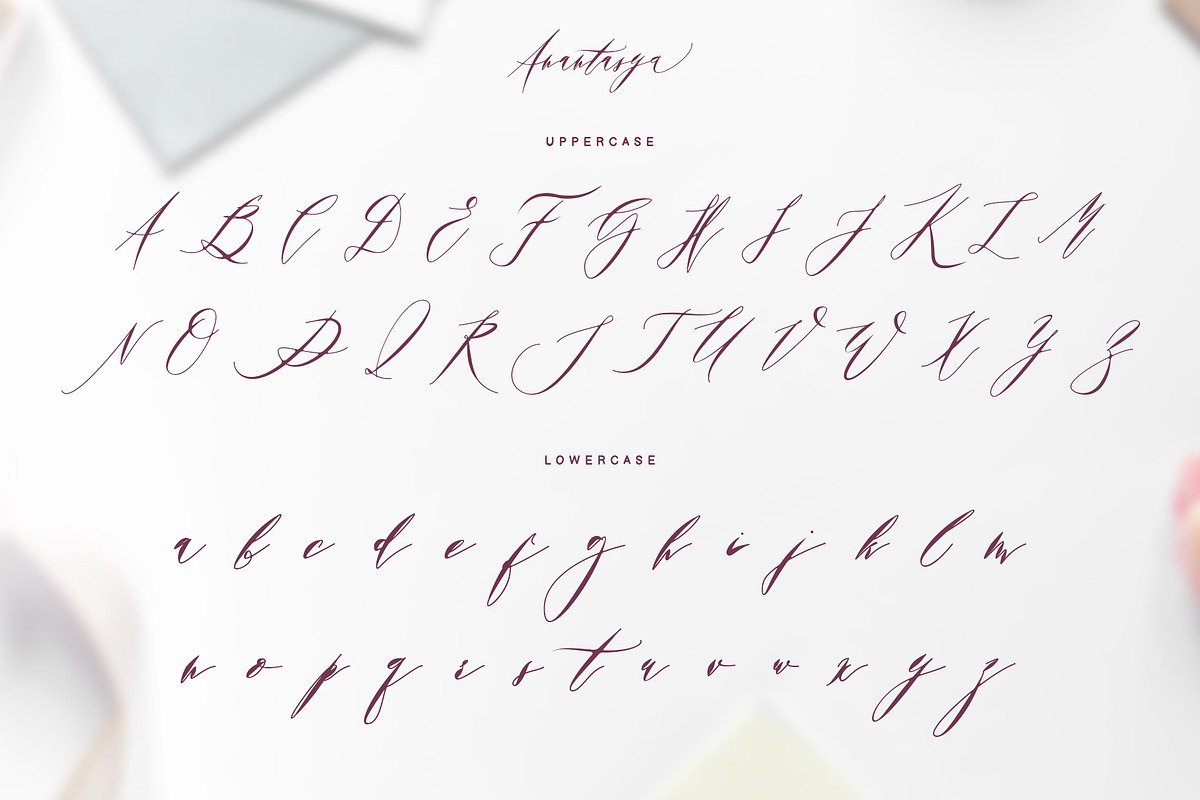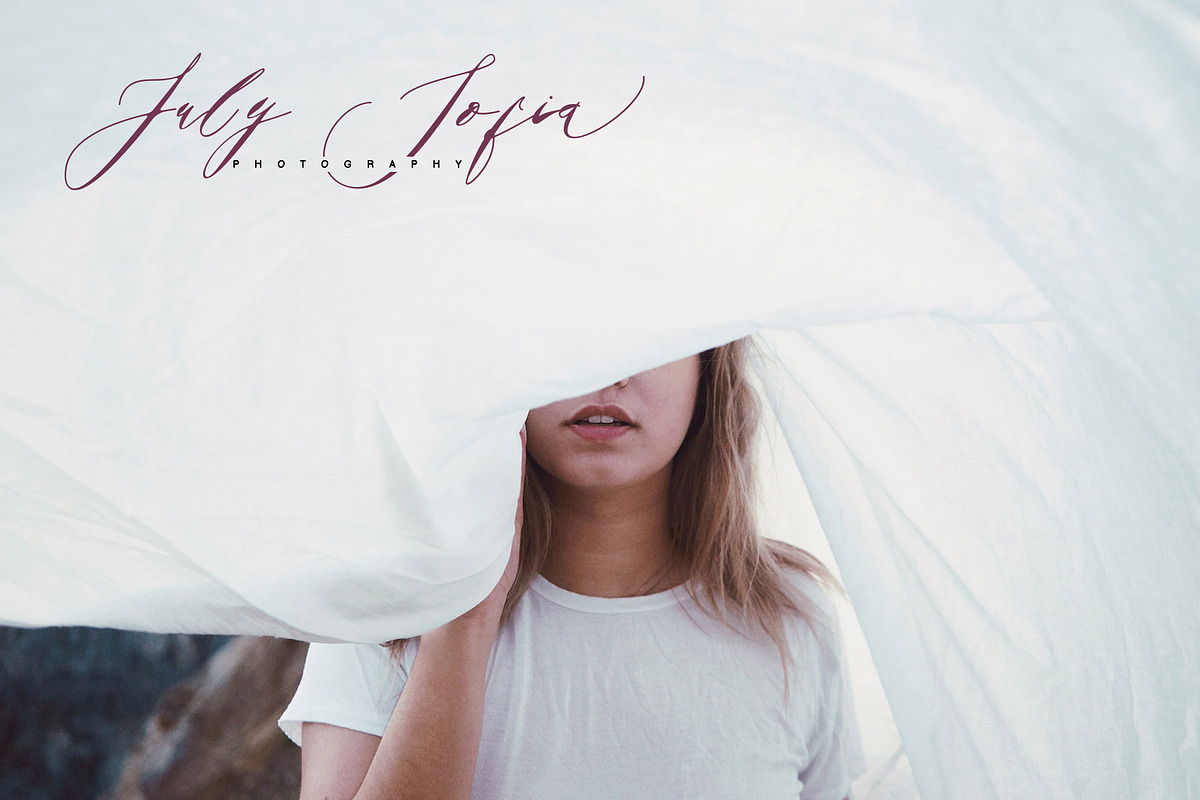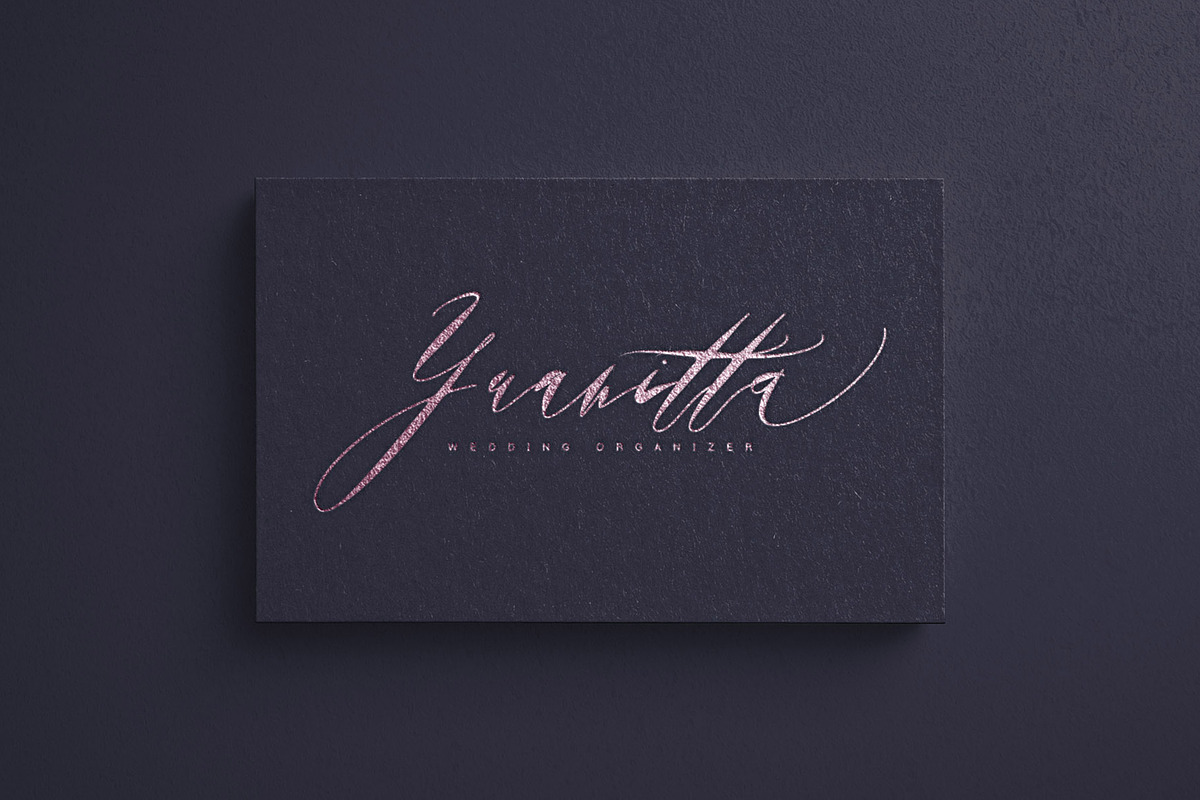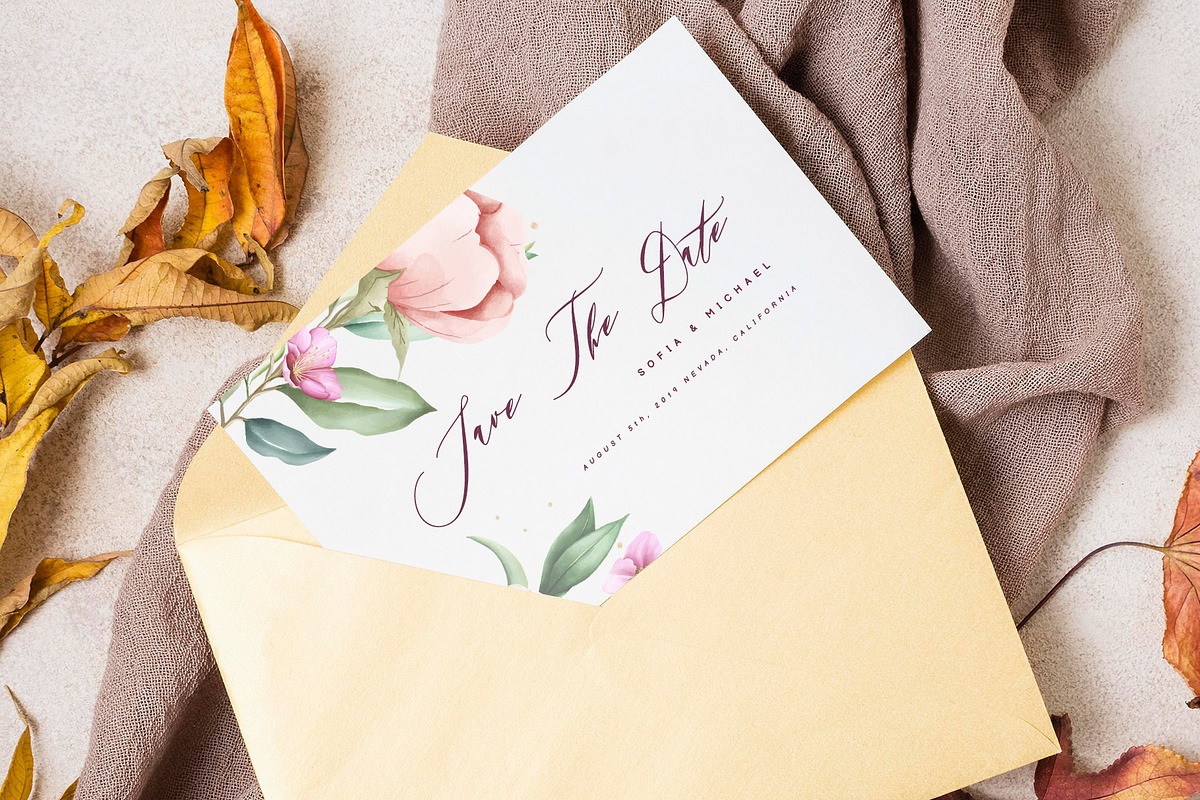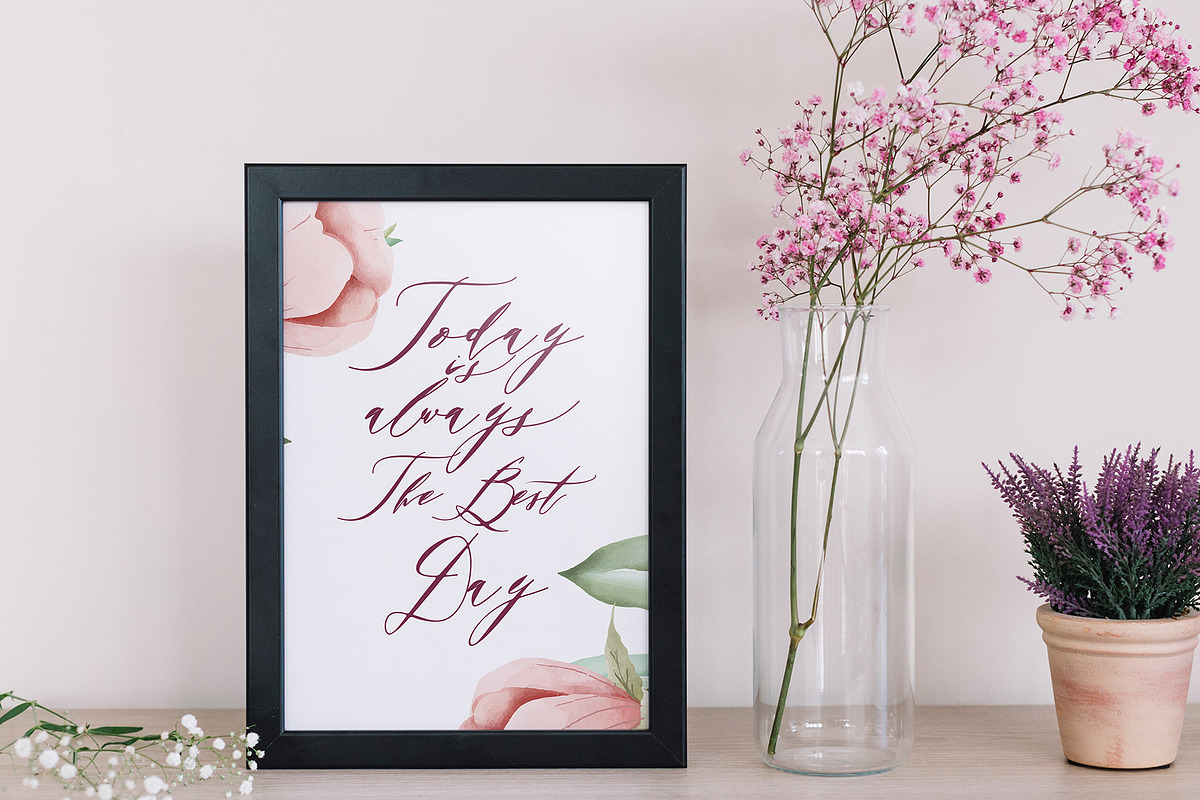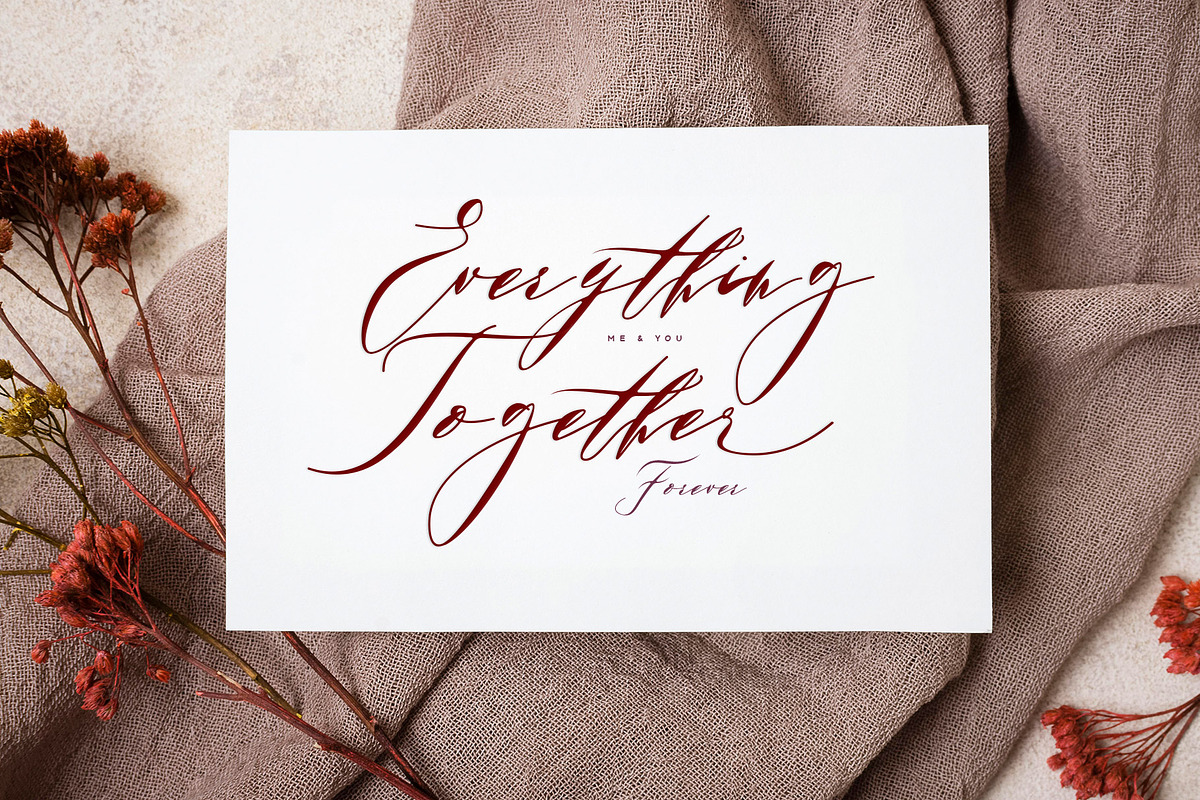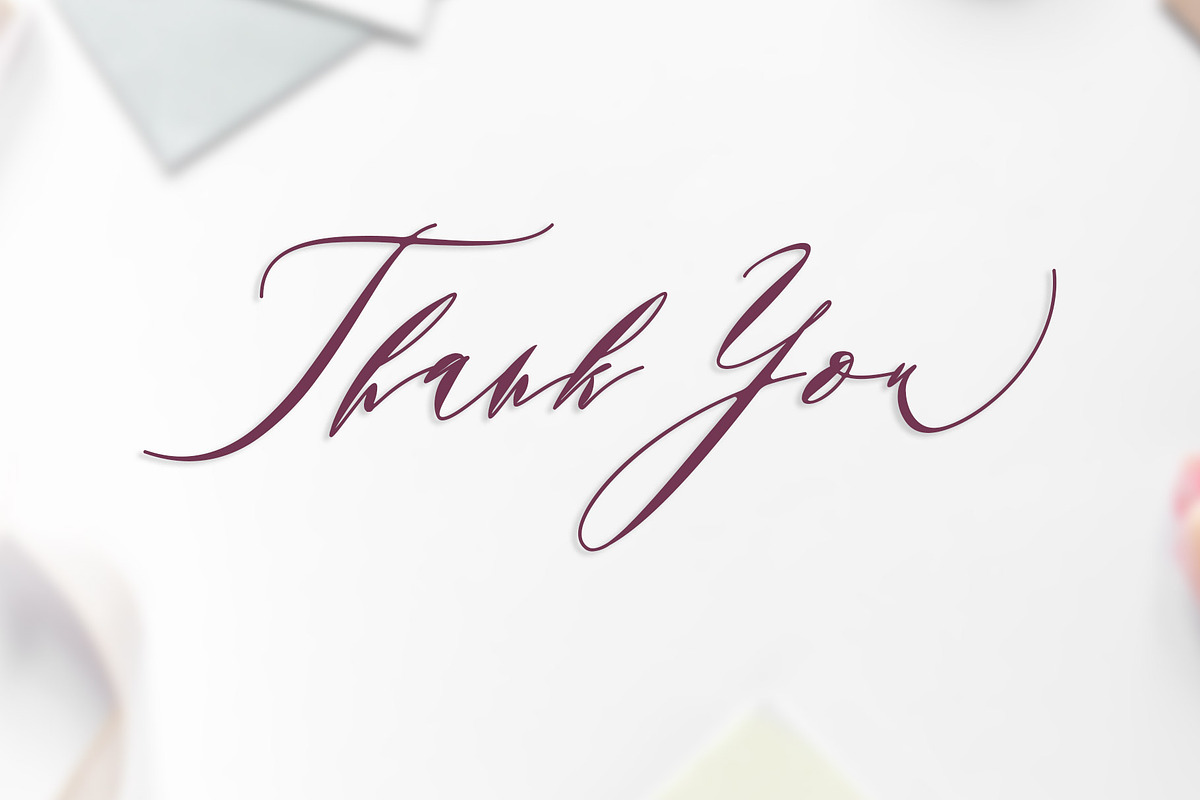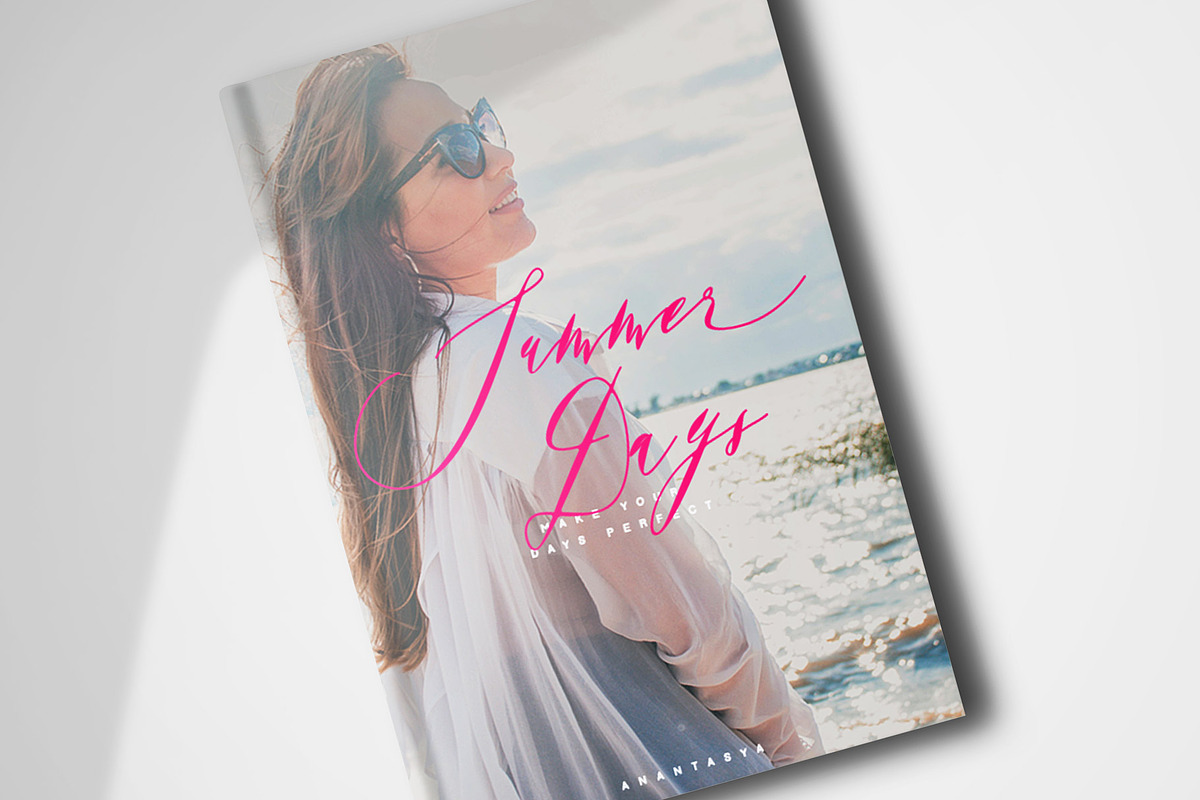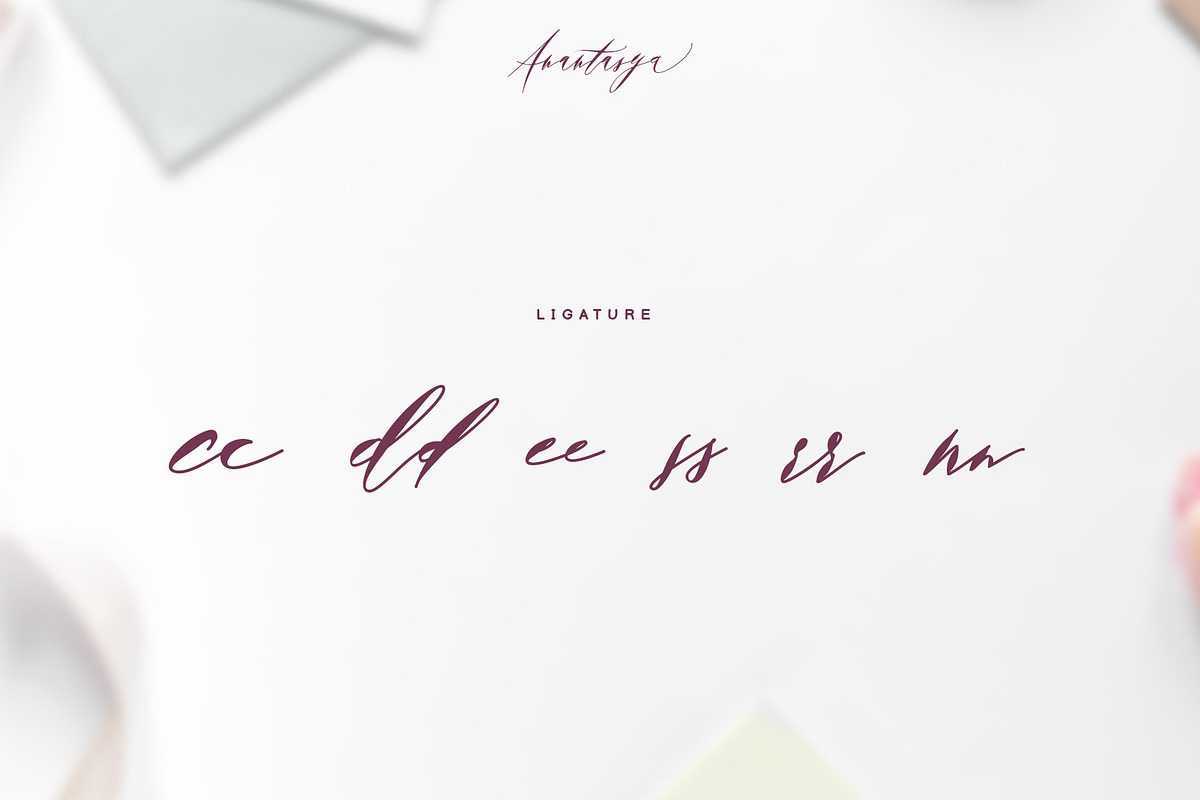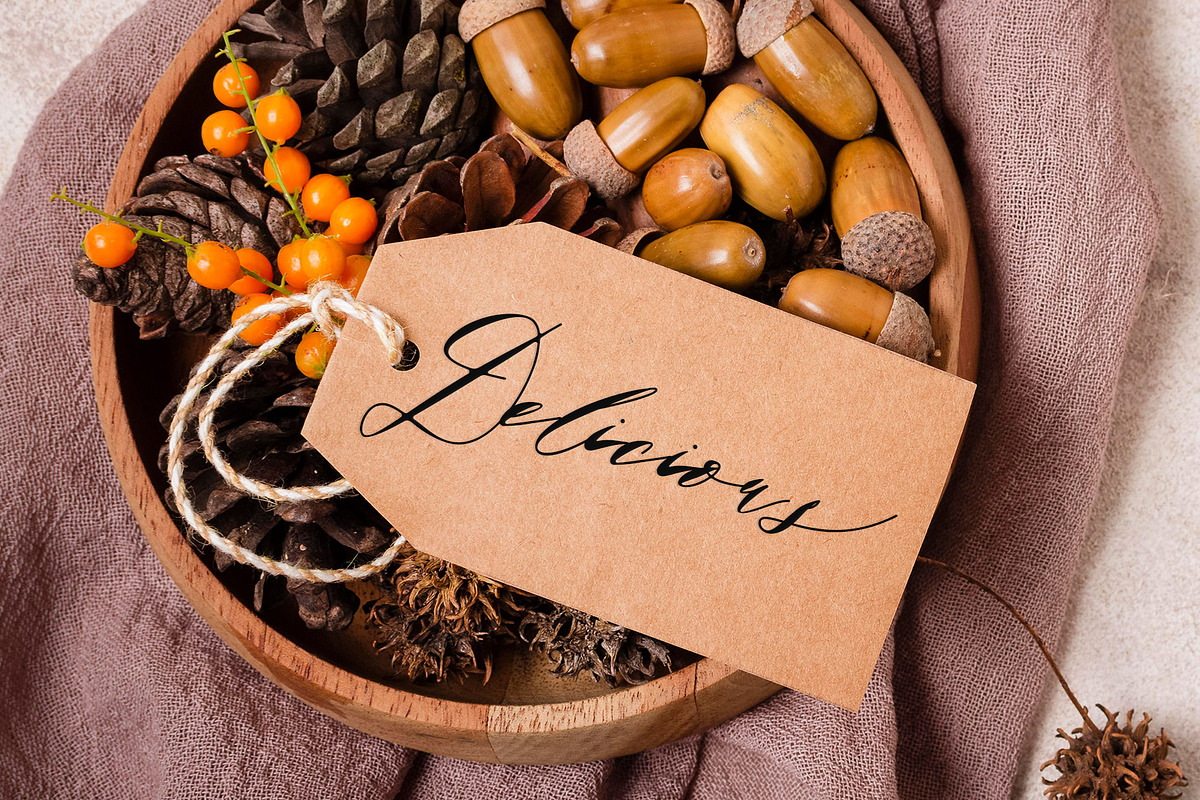
Anantasya | Script font
Introducing new latest from Analogous Studio, Anantasya is a script typeface with personality. You can use it as a logo, badge, insignia, packaging, headline, poster, etc The alternative characters in this font were divided into several OpenType features such as Stylistic Alternates, Stylistic Sets, and Ligature. The OpenType features can be accessed by using OpenType program such as Adobe Illustrator, Adobe Photoshop, and Adobe InDesign.